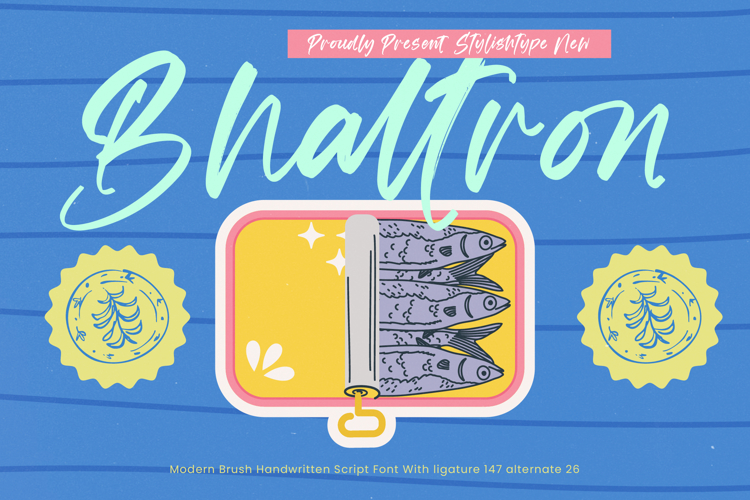
Bhaltron - Modern Brush Handwritten Script
Bhaltron - Modern Brush Handwritten Script. This dynamic typeface perfectly captures the spontaneous energy of authentic, hand-brushed lettering, offering a casual yet polished aesthetic. Its thick, sweeping strokes and seamless connectivity make it an excellent choice for designs that require a strong, personalized voice and a high-energy appeal. The organic flow ensures your text avoids the stiffness of digital type, providing a truly hand-crafted appeal.